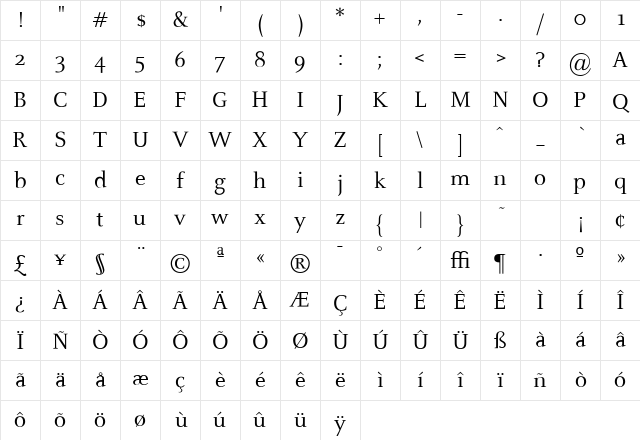
Celeste Regular
Design Context for Celeste
Celeste is a composed and adaptable typeface that performs quietly and consistently across a wide range of design contexts.